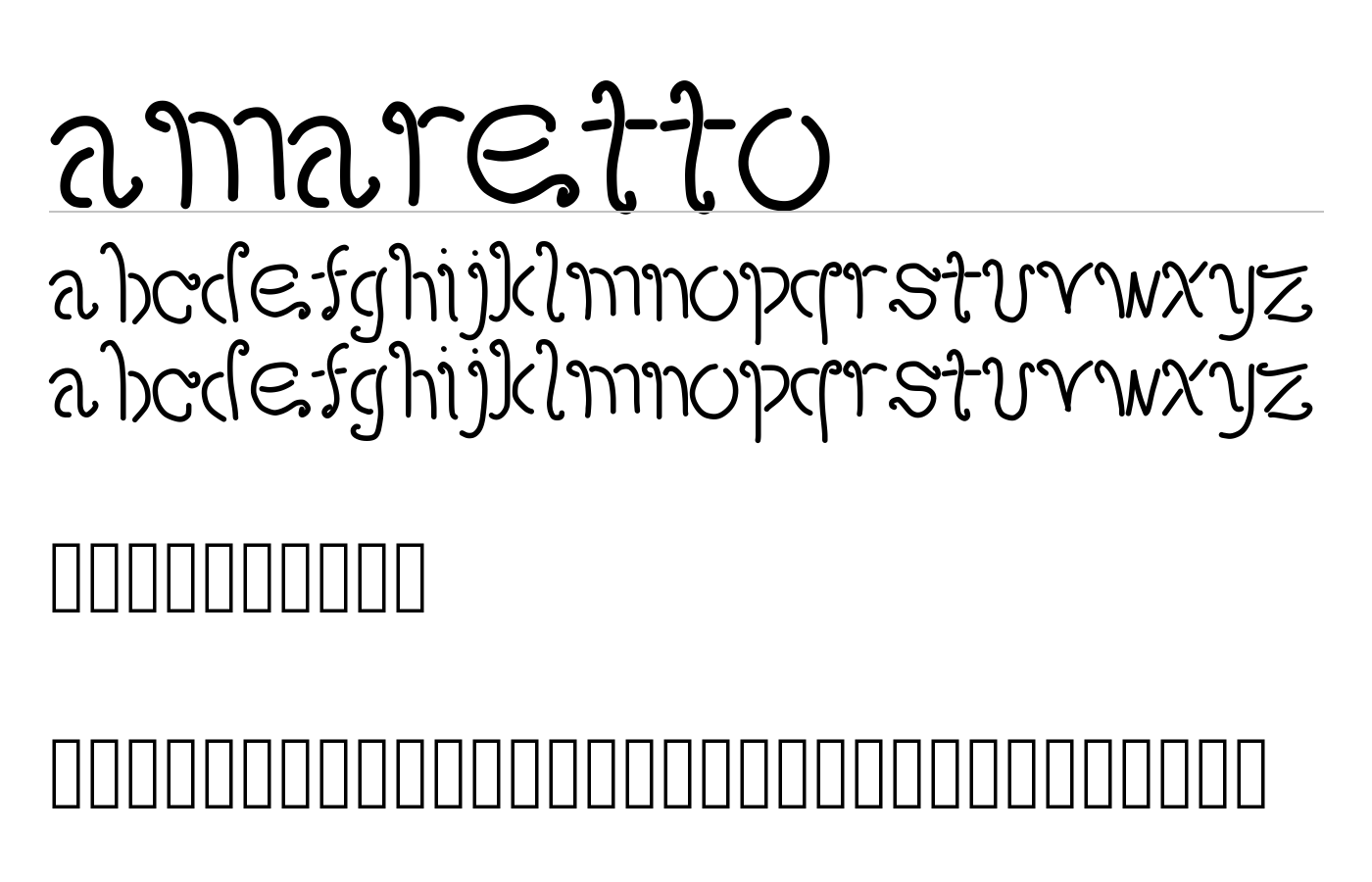
Amaretto is a whimsical, handwritten-style sans serif font characterized by its playful, looping strokes and unique curly terminals, giving it a friendly and artistic vibe. Its light weight and medium x-height make it ideal for creative projects, logos, and informal branding that seek a charming, approachable look. This font works best in display settings where its quirky personality can shine, such as invitations, children's books, or craft-focused packaging.
amaretto Font
About amaretto Font